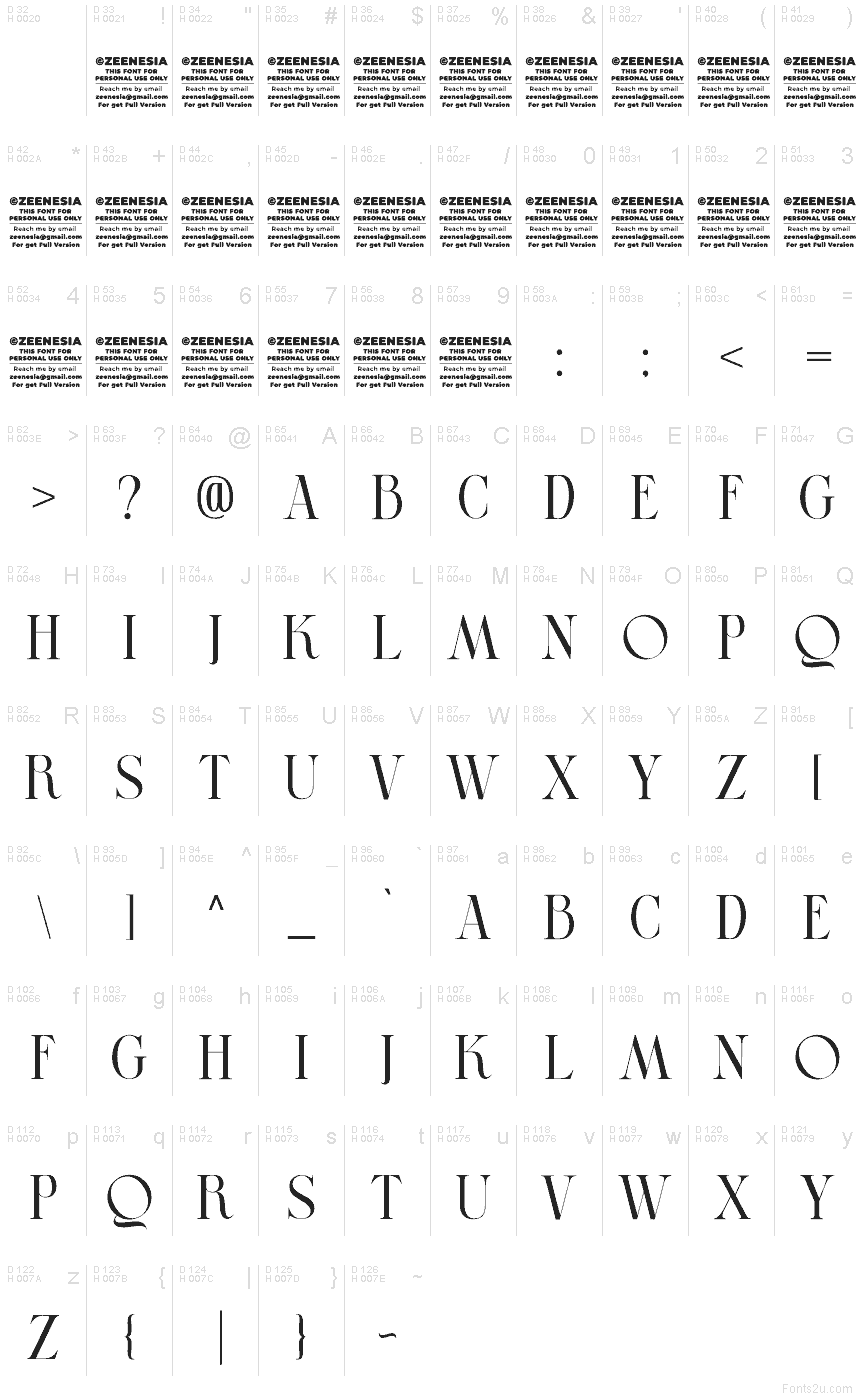
Branch font by Zeenesia Studio is a stylish, condensed font with elegant and vintage characteristics. This serif typeface immediately catches the eye with its high contrast, thin lines, and slightly elongated letters that add sophistication to any written piece. Its modern but balanced style makes it a fine choice for artsy projects combining both restrictions and creativity.
Available for free, this font will serve you well on product packaging designs, food & beverage branding campaigns where authenticity counts. In addition to that, it works perfectly for logo designing in various industries ranging from fashion labels through technological company logos looking to achieve timeless design across digital platforms (websites/social media posts).